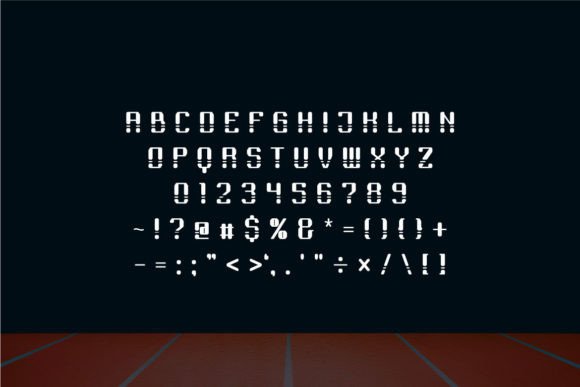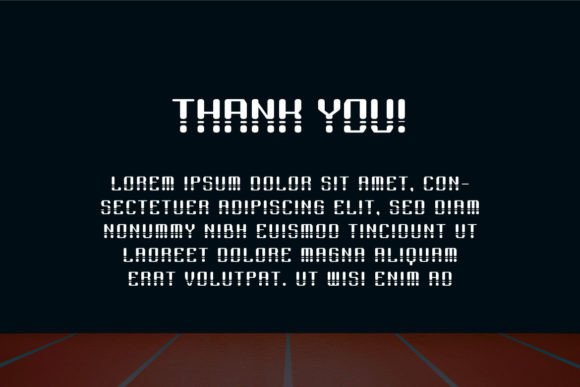
Introduction to Scores Font
Do you remember that moment when you finally nailed a creative project, and everything fell into place? The design, the colors, the text – it all came together in perfect harmony. That’s the magic of a great font, and the Scores Font is about to become your new go-to design resource.
As a designer, you’re always on the lookout for that special something to elevate your work and make it stand out. The Scores Font is a strong and assertive sport display font that’s perfect for any creative project. Whether you’re working on a sports-themed design, a bold advertisement, or a statement piece, this font is sure to deliver.
With its clean lines, high-quality design, and transparent background, the Scores Font is a valuable addition to any designer’s library. And the best part? It’s available for free download, making it an accessible and versatile design tool for creatives of all levels.
Key Features of Scores Font
- High-quality design resource with a wide range of creative project applications.
- Unique, hand-crafted design elements that can be used with a transparent background for maximum flexibility.
- Designed to be scalable, with a high resolution of 300 DPI for crisp and clear display on various devices.
- Perfect for designers and artists looking for a free, high-quality design resource for their next creative project.
- Available in a range of sizes, from small to large, making it suitable for various design applications.
- Easy to use and customize, with a clear and legible font style that’s perfect for both digital and print projects.
Honest Review: Scores Font
I recently had the opportunity to work with Scores Font, and I must say it was a mixed bag. On one hand, I was impressed with the font’s versatility and potential for use in a variety of creative projects. The font’s clean lines and modern aesthetic make it a great choice for designers looking for a high-quality design resource.
One of the standout features of Scores Font is its ability to be used on a transparent background, which adds a level of sophistication to any design. Additionally, the font is available for free download, making it a great option for designers on a budget.
- ✨ Versatile and modern aesthetic
- ✨ Clean lines and high-quality design
- ✨ Can be used on a transparent background
- ⚠️ Limited character set, may not be suitable for large-scale projects
- ⚠️ Some users may find the font too minimalist, lacking in personality
Overall, I would say that Scores Font is a solid addition to any designer’s toolkit. While it may have some limitations, its versatility and high-quality design make it a great choice for a variety of creative projects. Just be sure to consider your specific needs and project requirements before deciding to use Scores Font.
Scores Font
Scores Font is a high-quality design resource ideal for creative projects requiring a unique and eye-catching text style. This free download offers a transparent background, allowing for seamless integration with various design elements.
Tips for Getting the Most Out of Scores Font
Experiment with different font sizes and colors to create visually appealing text effects.
Combine Scores Font with other design elements, such as graphics and images, to create a unique and engaging design.
Scores Font is ideal for:
1. Creating attention-grabbing headlines and titles.
2. Designing promotional materials, such as posters and flyers.
3. Enhancing digital products, such as e-books and presentations.
Yes, Scores Font is a transparent font, meaning that it has a transparent background. This makes it ideal for use in digital design projects where a transparent background is required. You can use Scores Font with a transparent background in a variety of creative projects, including graphics, logos, and other visual elements.